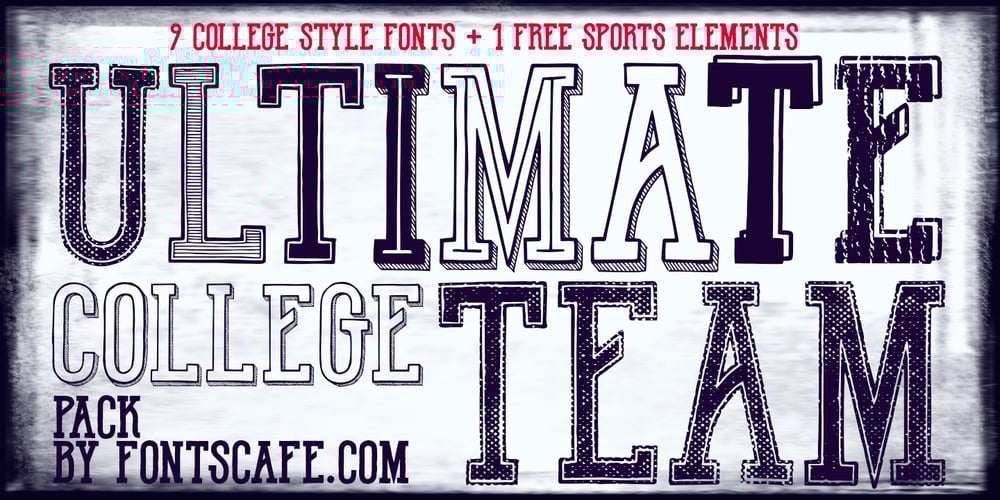
Ultimate College Team
Ultimate College Team font
Ultimate College Team Font Family was designed by published by Fontscafe. Ultimate College Team contains 10 styles and family package options. College styles fonts are a “must have” for any designer just because of their really vast possibilities of uses. With our “Ultimate College Team” pack we’re giving a whole range of “College style” fonts where you’ll be able to select in any moment the perfect characteristic necessary for your next project. The pack includes 9 hand crafted fonts that capture these very emotions of team work and campus life. Our college fonts speak largely of sports activities, but also of those strong emotions that combines force, discipline, determination, confidence and that feeling to be “in the Team”. The “Hot Sports Elements” font, which consists of handy sports related graphic elements, is the last touch to reinforce and add meaning of a piece of text and create the best balance to your layout and it comes free when you buy the packs available!